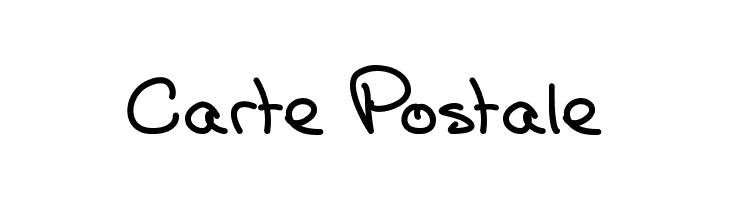
A playful, handwritten font with a casual and friendly style.
A hand-drawn, artistic font with a casual and dynamic style.
A playful, handwritten font with a casual and whimsical style.